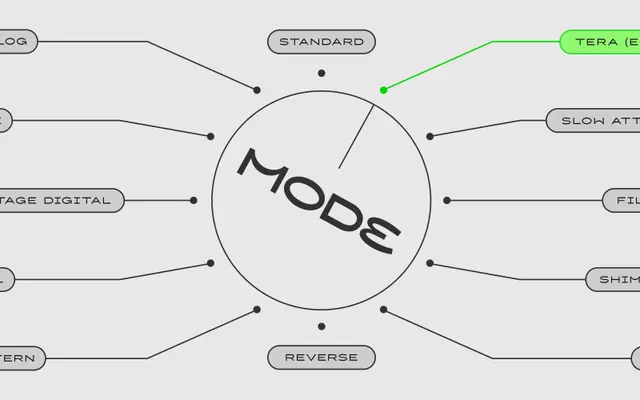
A reverse-contrast display typeface with swooping, rhythm-driven letterforms inspired by audio engineering brands and interfaces.
Built around a subtle reverse contrast and melodic stroke construction, letters rise and dip according to their individual forms, producing a visual cadence across longer settings. Three static weights from Light to Bold are accompanied by a variable font for stepless weight control, and an extensive set of alternates for M, Q, W, R, A, E, F and other characters makes it particularly useful for logo and wordmark work. Language support spans well over a hundred Latin-based scripts.
BPM features a subtle reverse contrast construction with swooping, rhythmic letterforms inspired by audio engineering interfaces, placing it firmly in the display category with a distinctive decorative character.